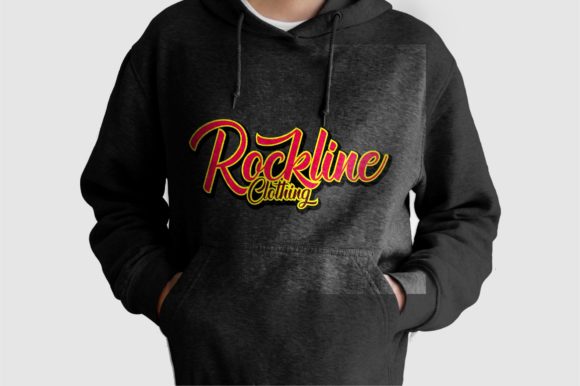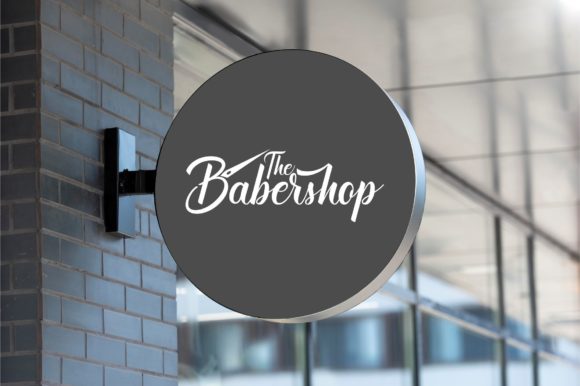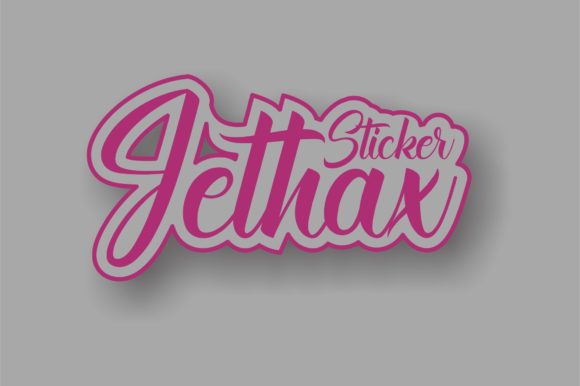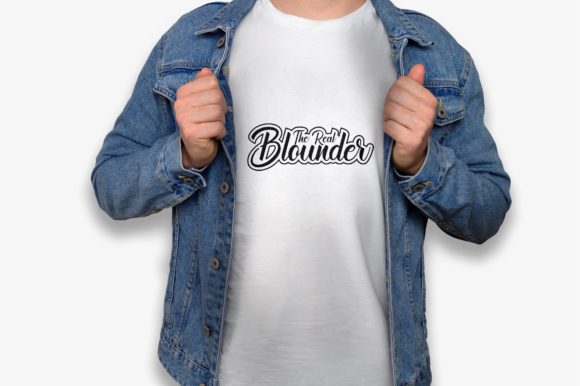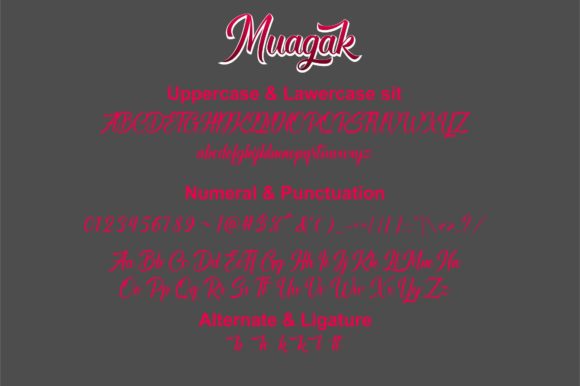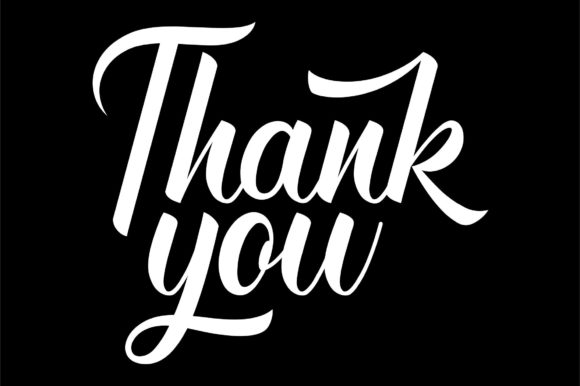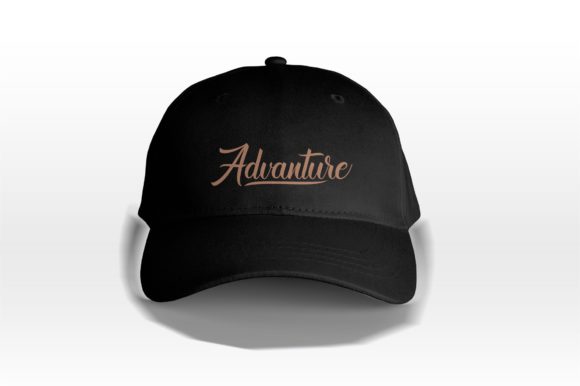
Muagak Font
About Muagak Font
Muagak is a hand-brushed script that feels very elegant and fluid. Bold fonts make great expressive designs. This font is neatly crafted and highly detailed. Whatever the topic, this font will be a wonderful asset to your font library, as it has the potential to enhance any creation. It has a youthful and passionate design and is perfect for logos, t-shirts, branding, and more!